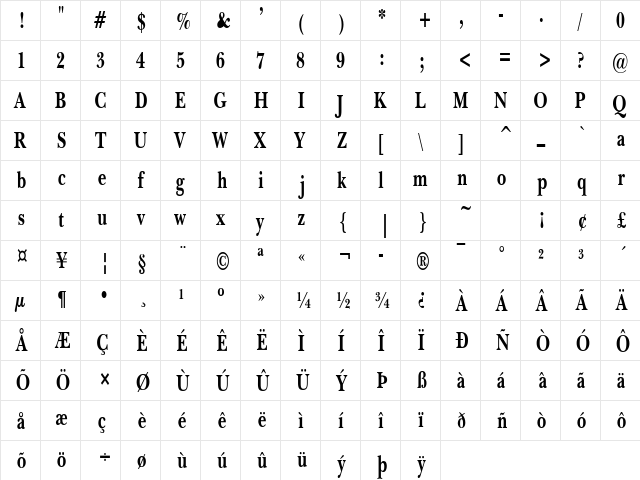
BaskertonCondSW Bold Font Preview
BaskertonCondSW Bold
Design Context for BaskertonCondSW Typeface
BaskertonCondSW offers clean, dependable letterforms without strong stylistic allegiance, making it a practical choice for designers who need flexibility. Its bold stroke weight gives it real presence on the page. The condensed width makes it efficient for tight spaces without sacrificing legibility.